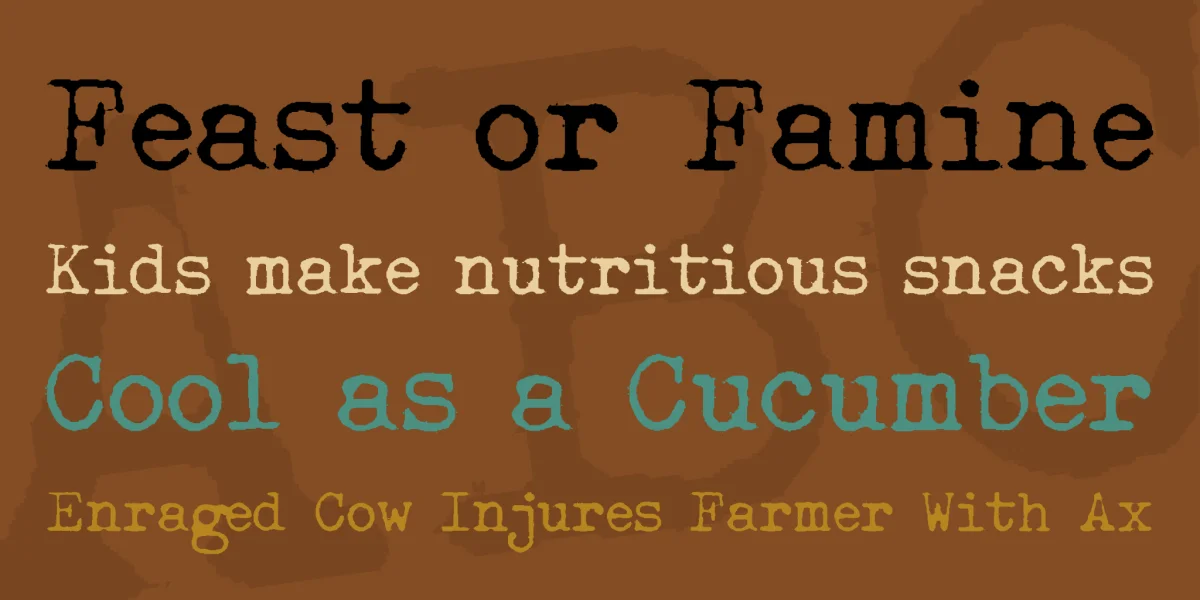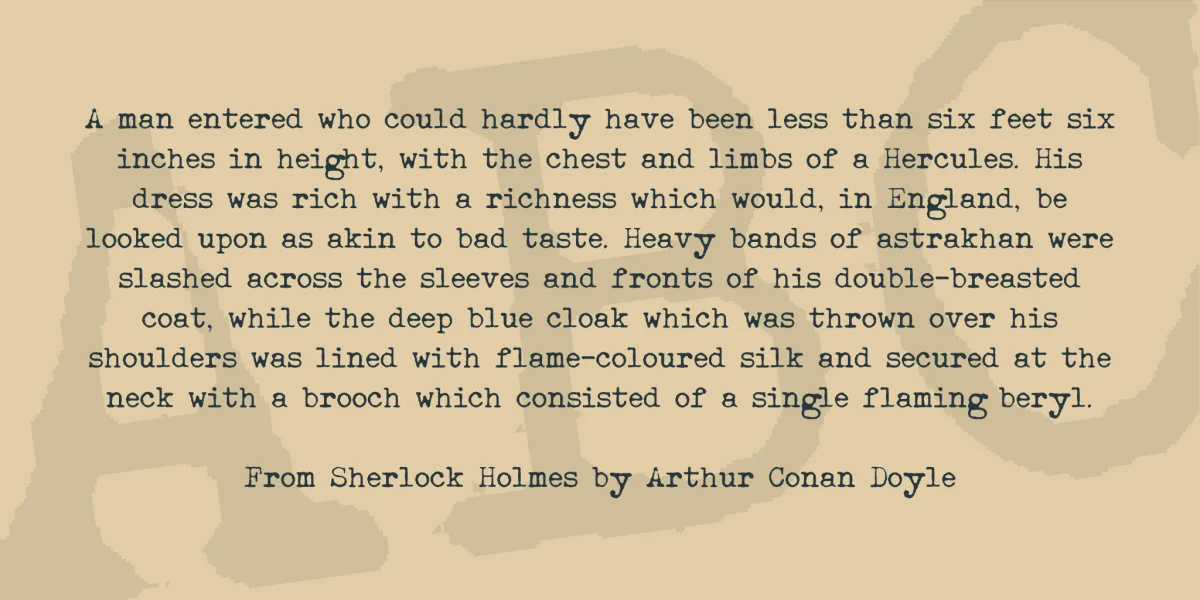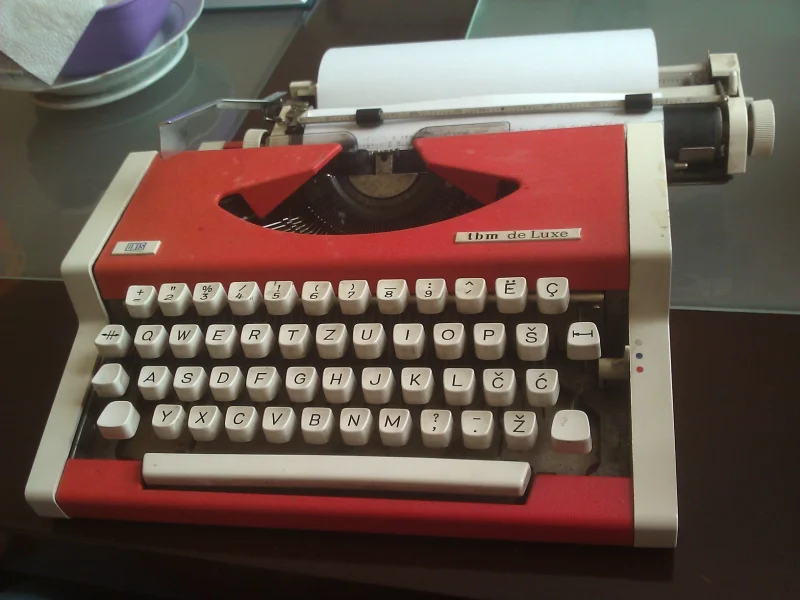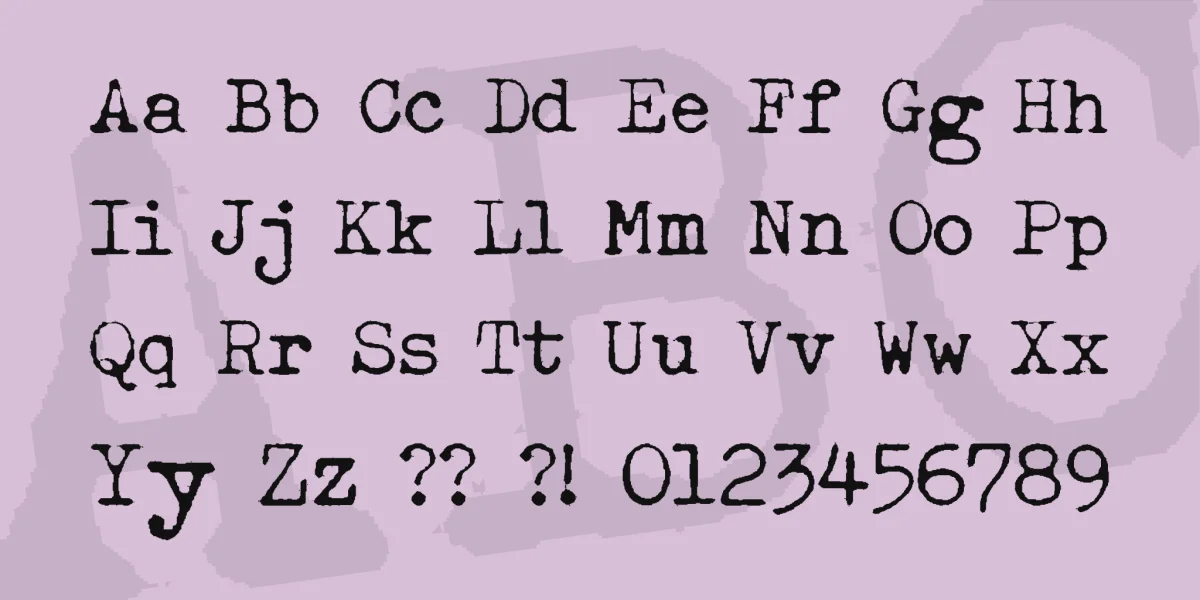
My father's typewriting machine. The chars were scanned.
Model name: tbm de Luxe
Manufacturer: UNIS (Udružena Metalna Industrija Sarajevo - Tvornica biro masina - Bugojno), Yugoslavia
Production period: 1980’s
Keyboard: Albanian / Serbo-Croatian QWERTZ